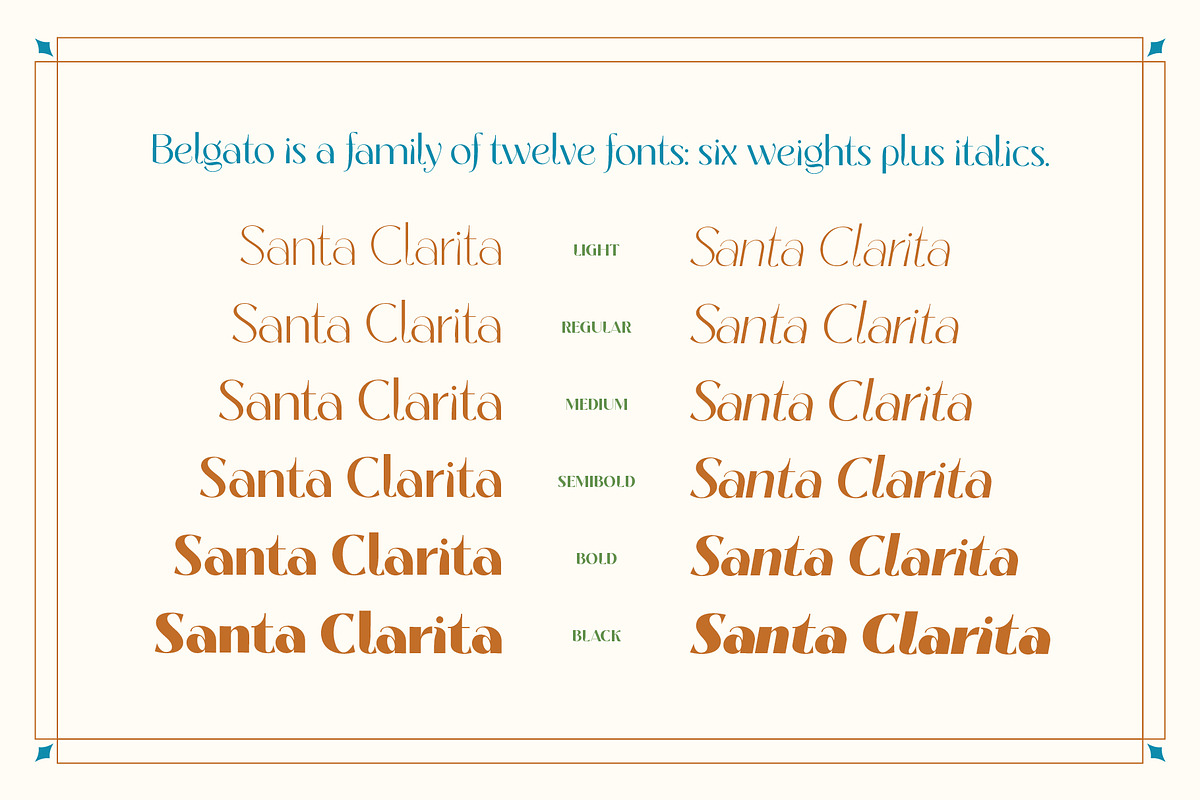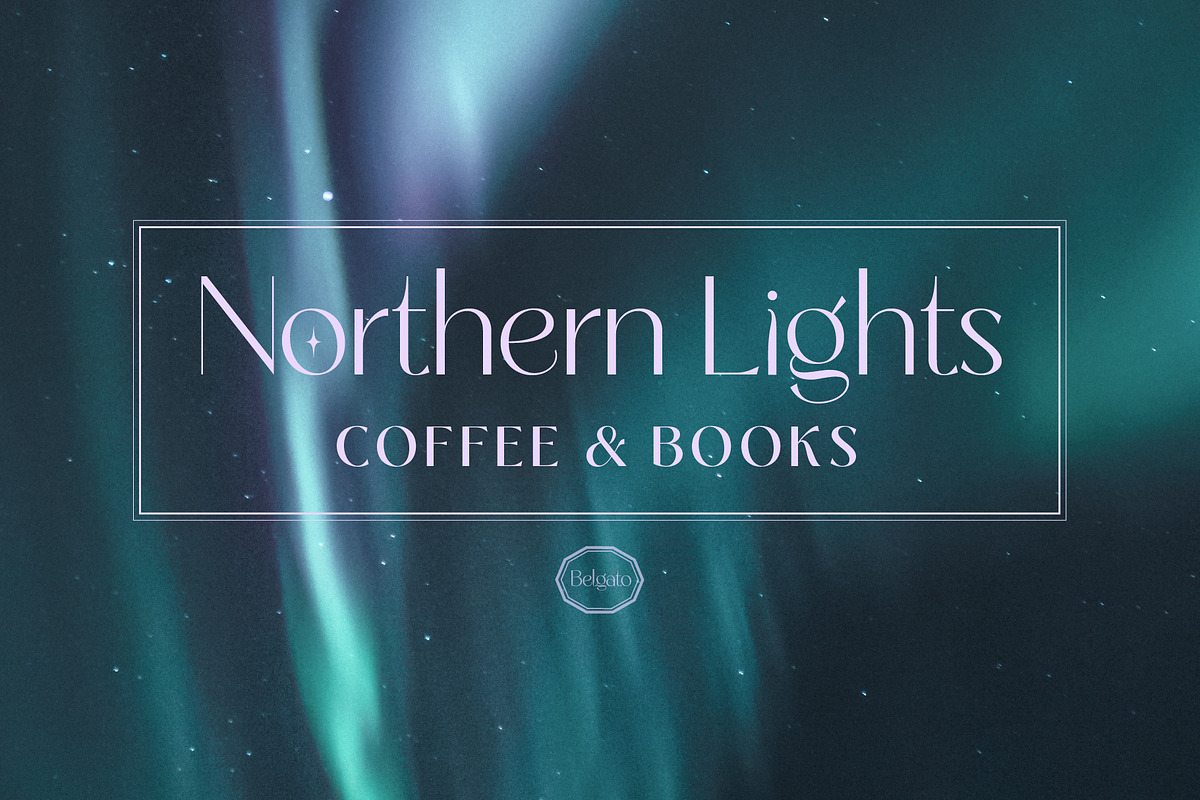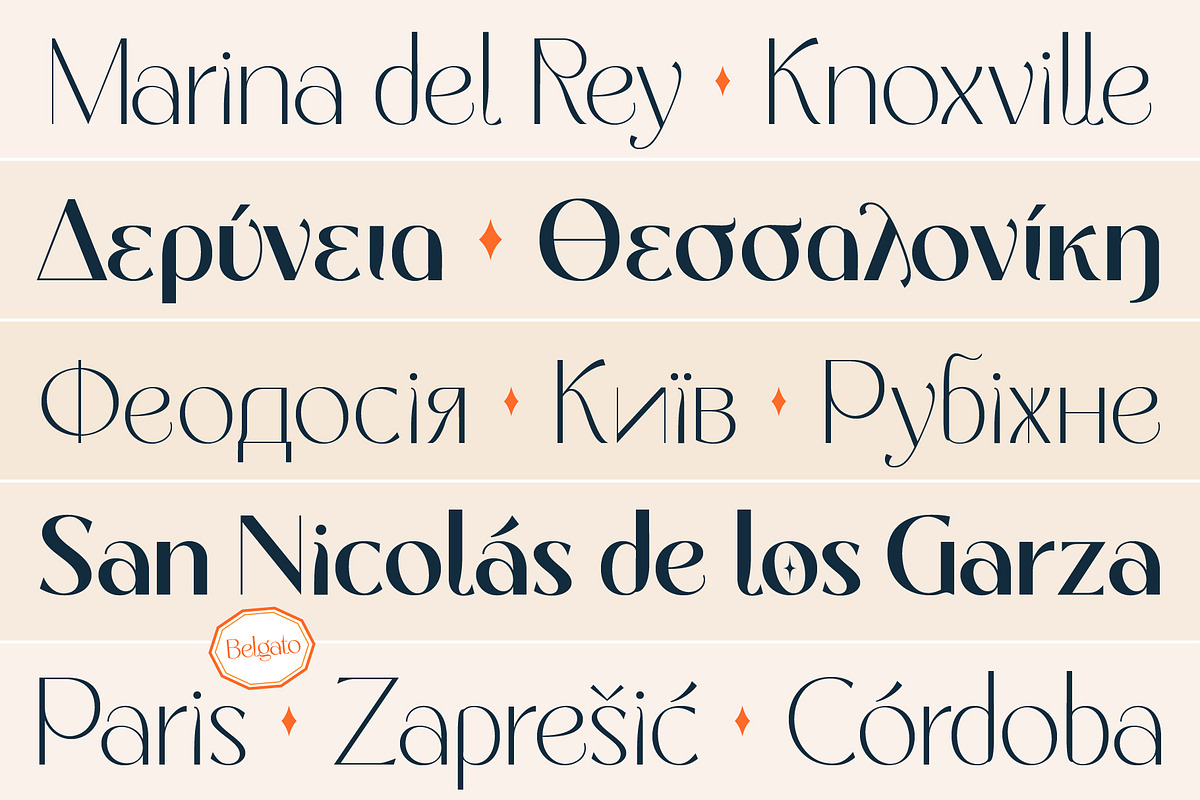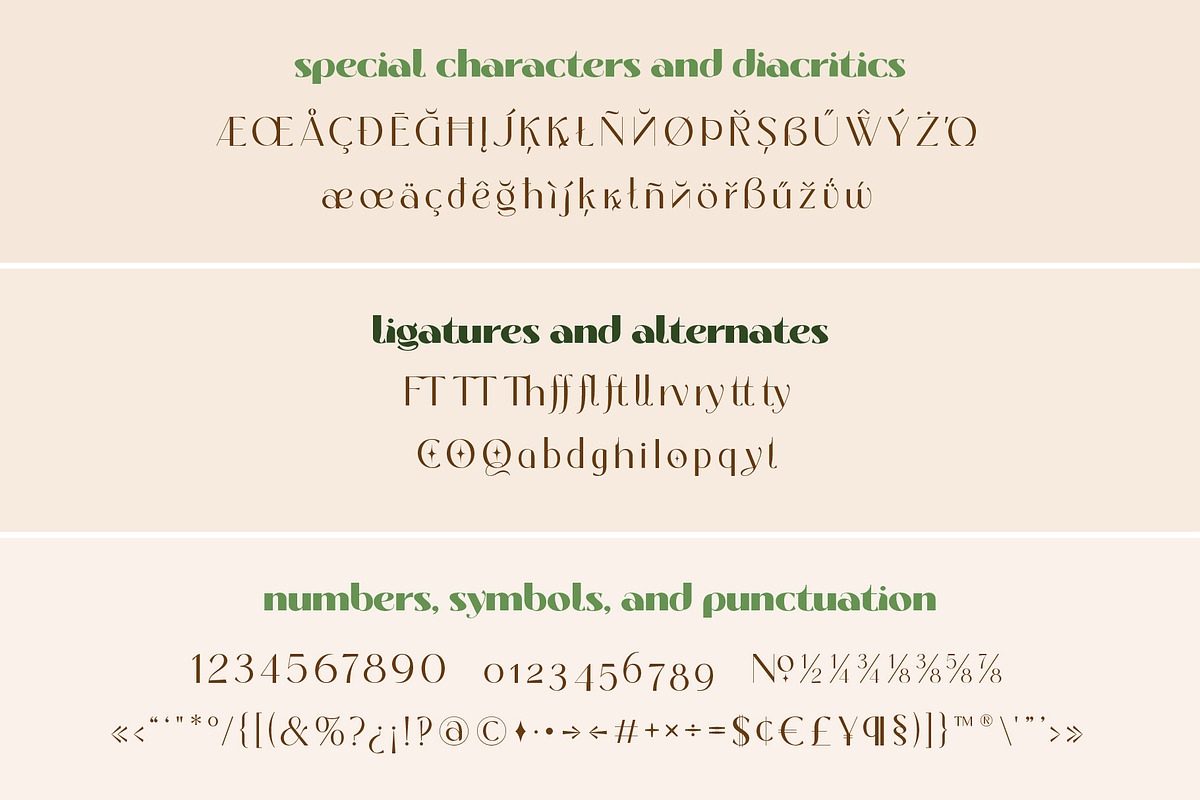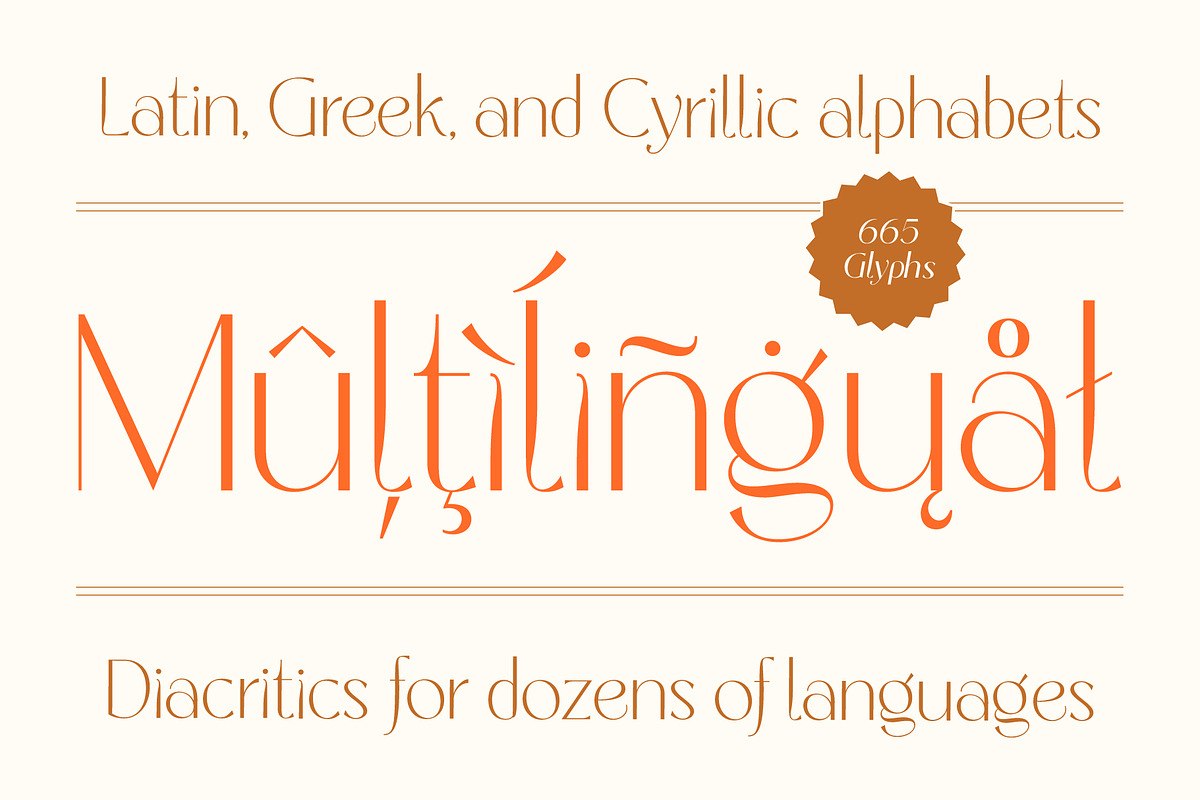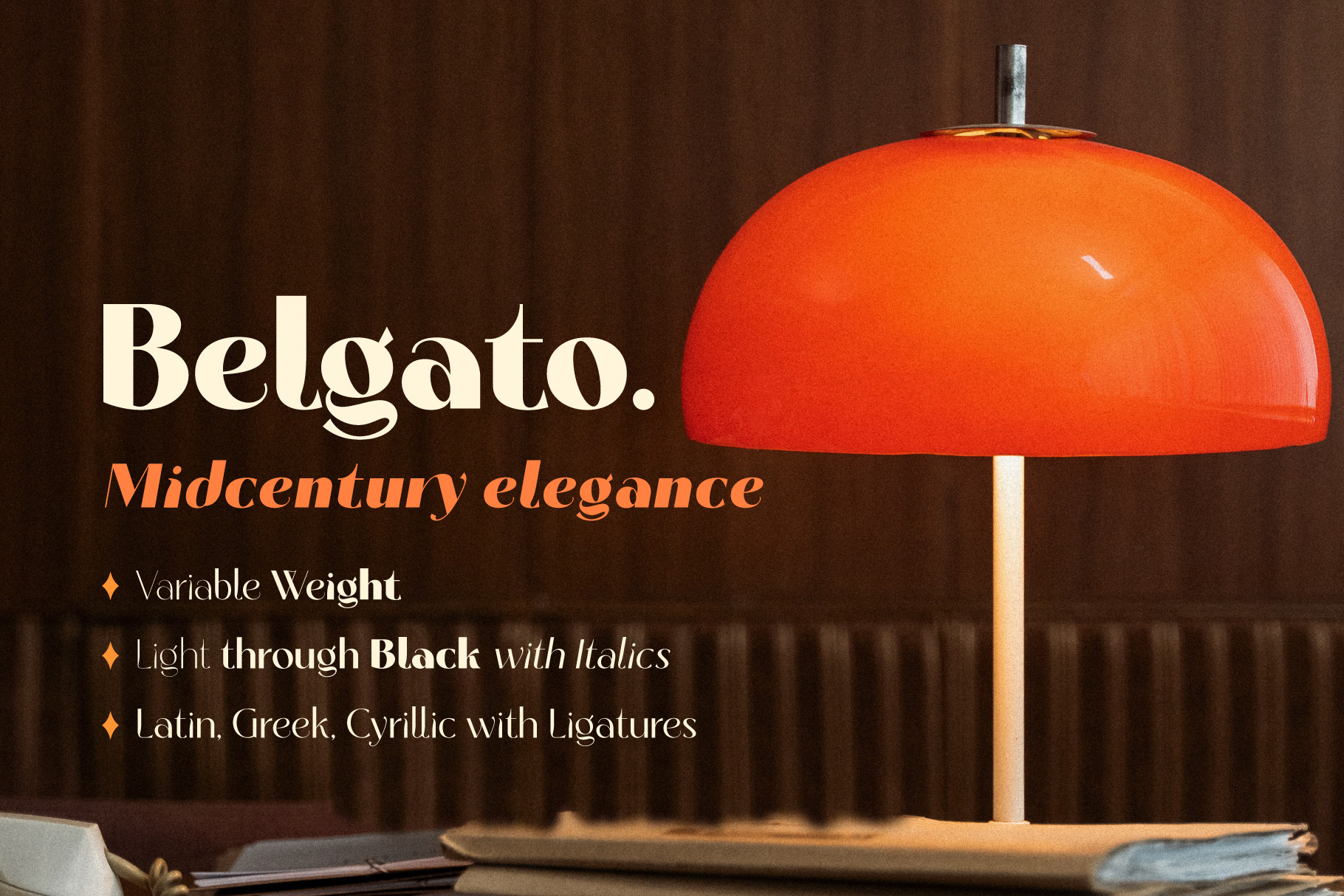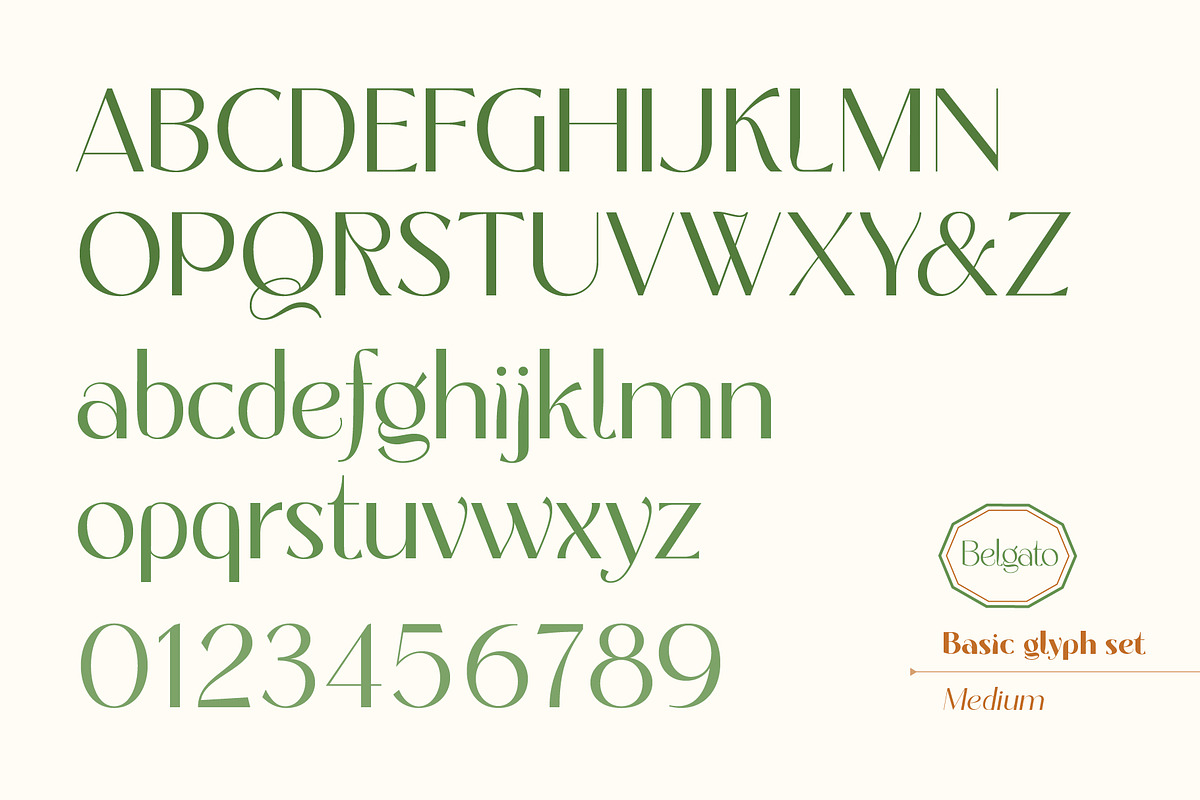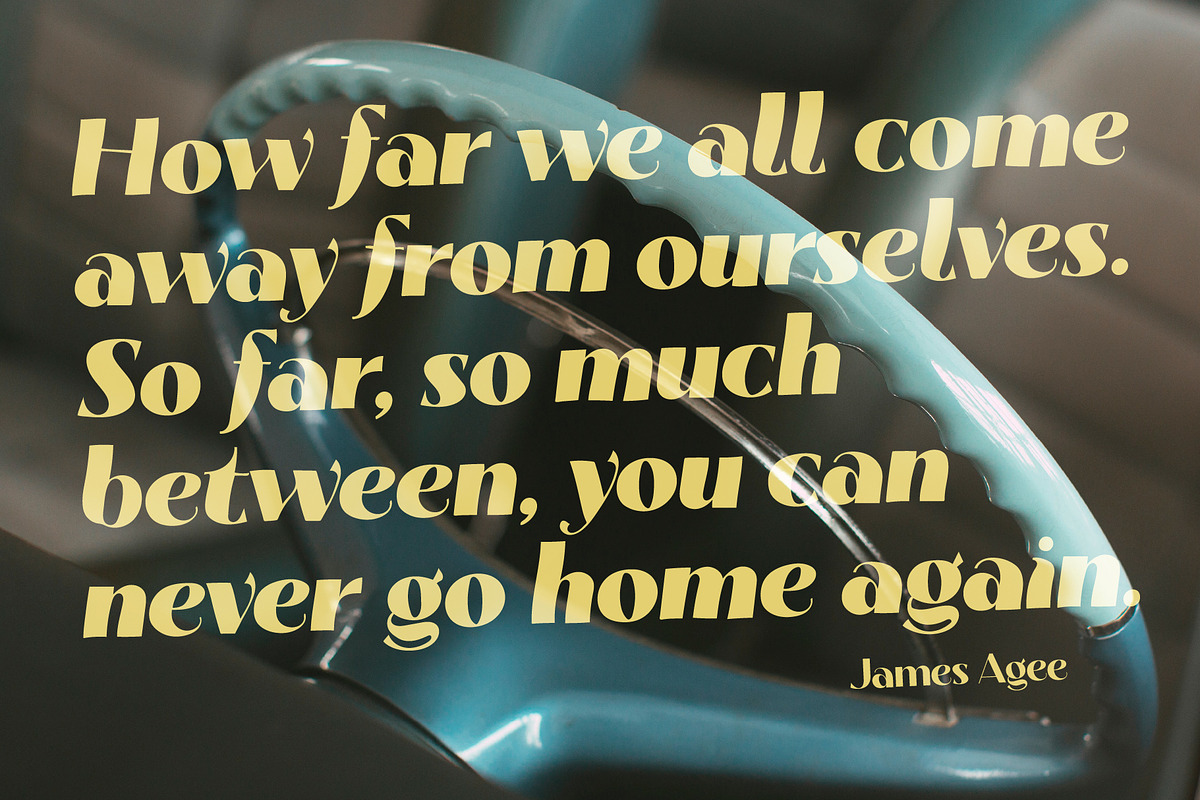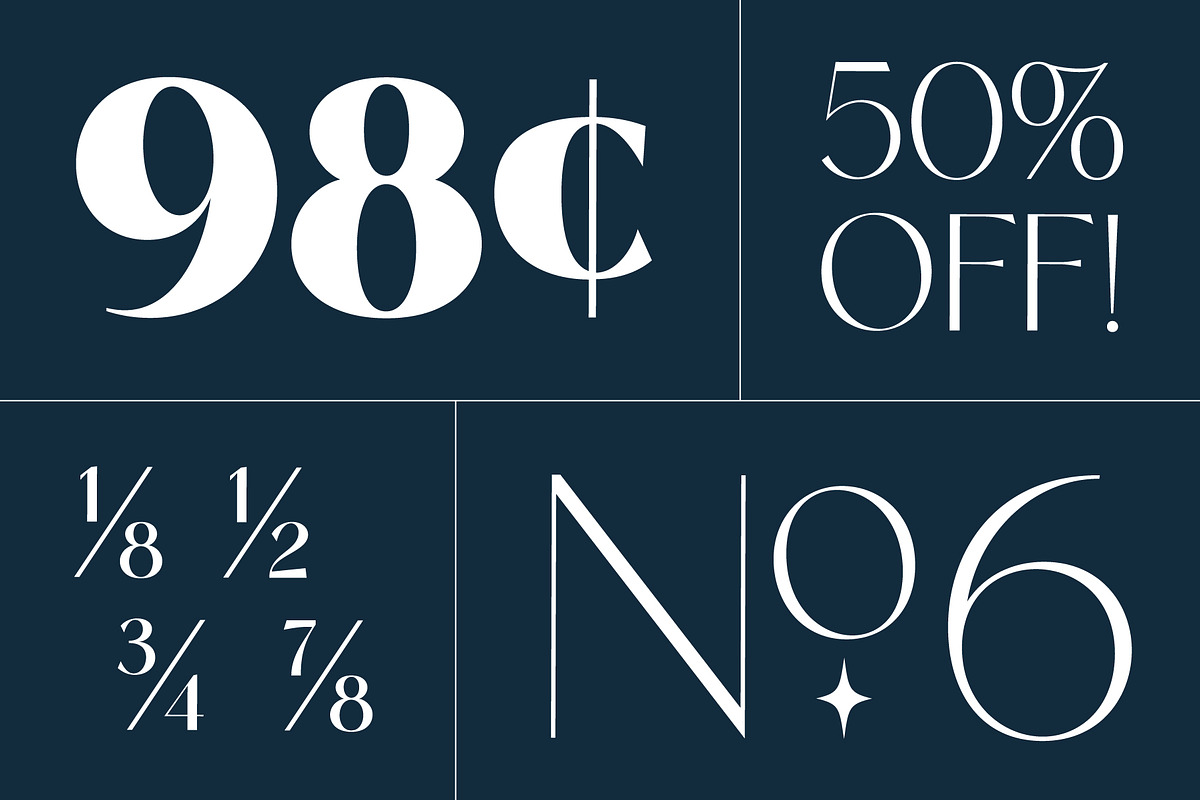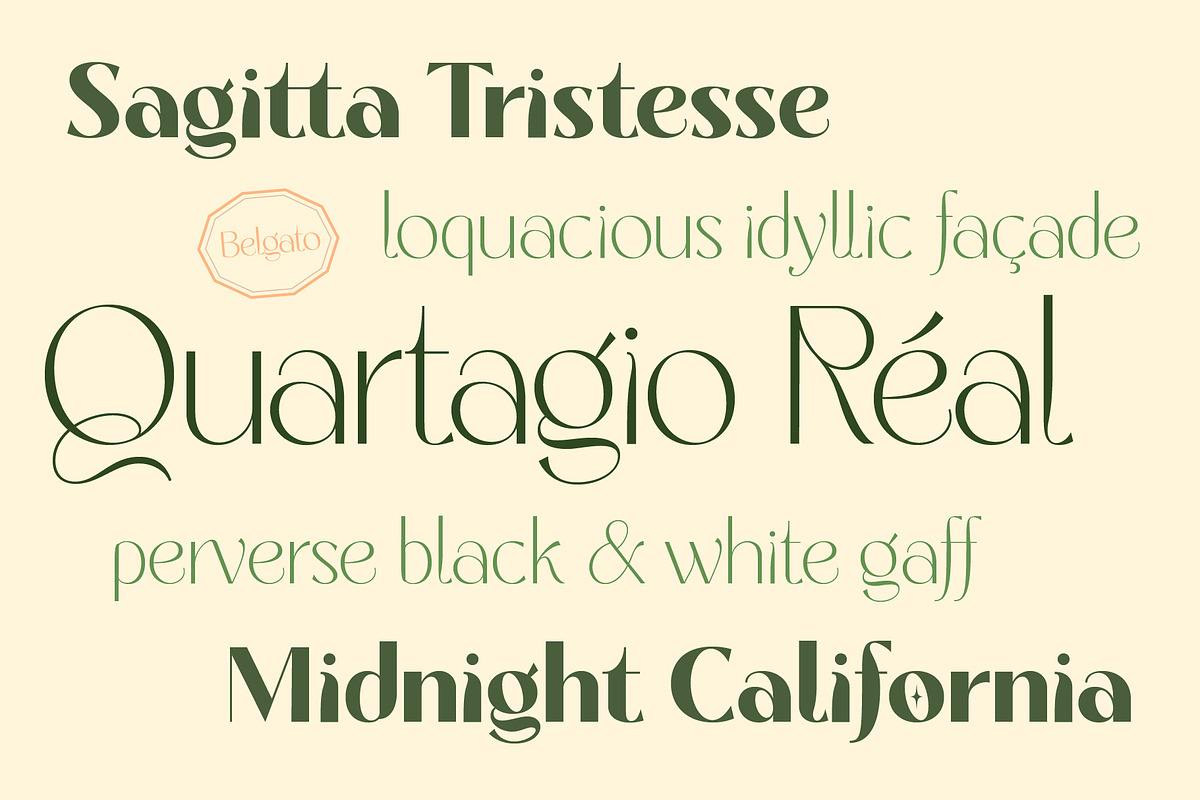
Belgato Elegant Vintage Font Family
Belgato is a vintage-inspired typeface with delicate details. It comes in six weights – plus italics! – for a total of 12 fonts, making it a highly versatile display face. The bonus variable font file allows for ultimate weight and slant customization in print and web.
Belgato has Latin, Greek, and Cyrillic alphabets, and supports dozens of languages, making it ideal for multilingual branding, publications, ads, social media, and more!
I had so much fun designing this typeface, playing with classic serif letterforms to create an elegant, mid-century modern vibe. Belgato Light is fresh, airy, and delicate – perfect for feminine branding. By contrast, Belgato Black boasts fat curves with thin details, perfectly-suited to bold layouts and retro branding projects.
Belgato has 665 glyphs:
- the Latin alphabet (including hundreds of accented characters)
- the Modern Greek alphabet
- the Cyrillic alphabet (for Russian, Ukrainian, Bulgarian, and Serbo-Croatian)
- discretionary ligatures
- stylistic and alternate glyphs
- numerals (lining and old style), small figures, and fractions
- extensive punctuation, symbols, and diacritical markings
Belgato supports dozens of languages which use the Latin, Greek, and Cyrillic alphabets. Among the most common languages it supports are: English, Bulgarian, Catalan, Croatian, Czech, Danish, Dutch, Filipino, Finnish, Flemish, French, German, Modern Greek, Hungarian, Icelandic, Indonesian, Italian, Luxembourgish, Maltese, Norwegian, Polish, Portuguese, Russian, Serbo-Croatian, Spanish, Swedish, Swiss German, Turkish, and Ukrainian.